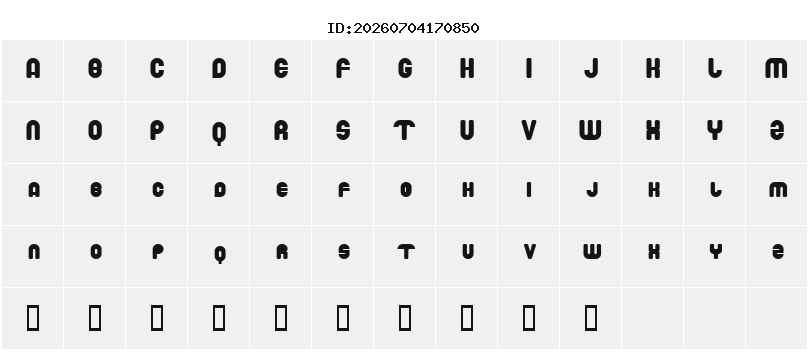
About Drowning Monkey.ttf
Drowning Monkey.ttf is a modern, elegant sans-serif font designed for ultimate readability and visual harmony. Perfect for branding, headlines, web design, and print materials.